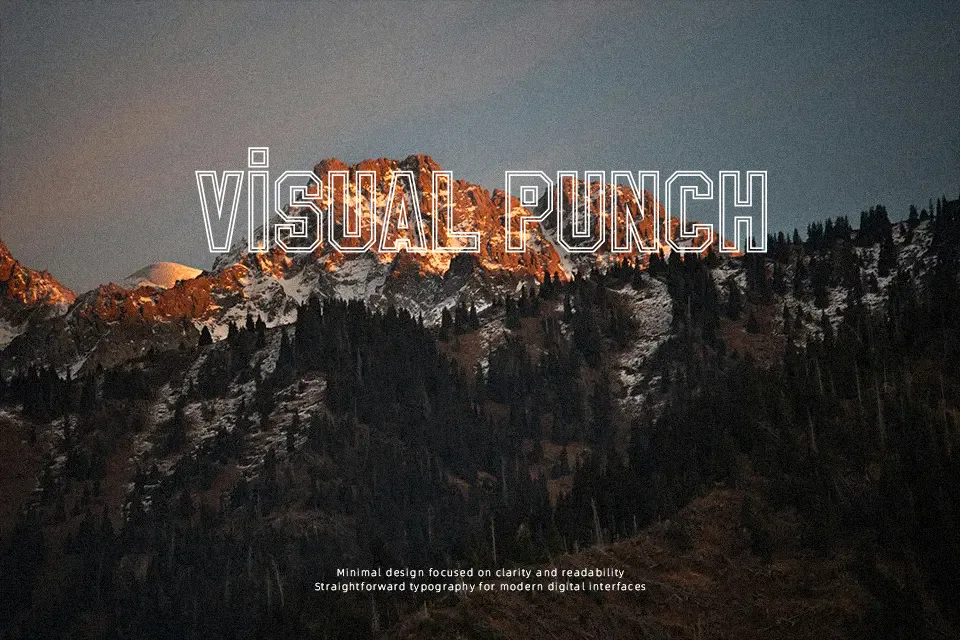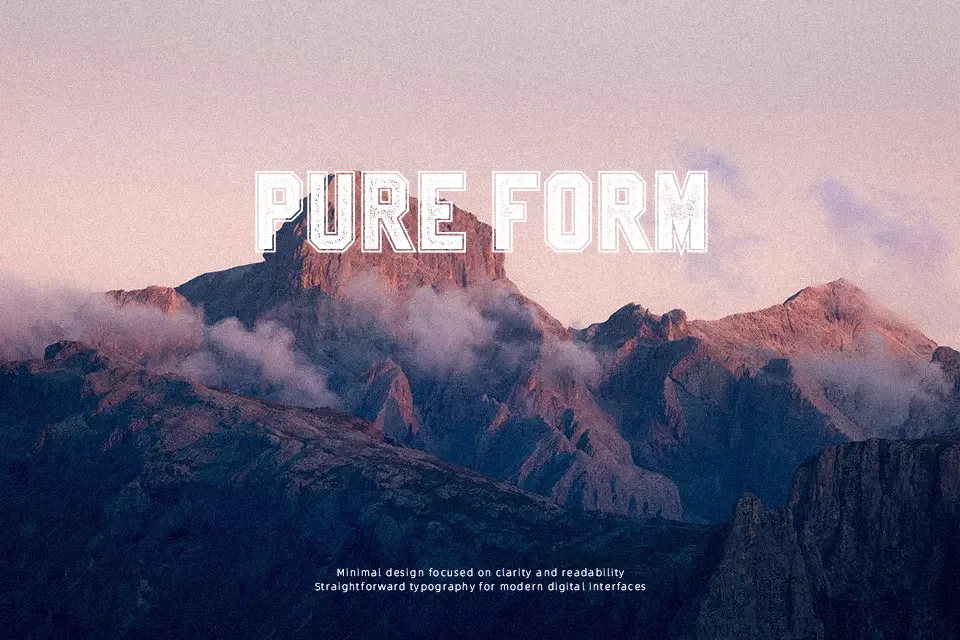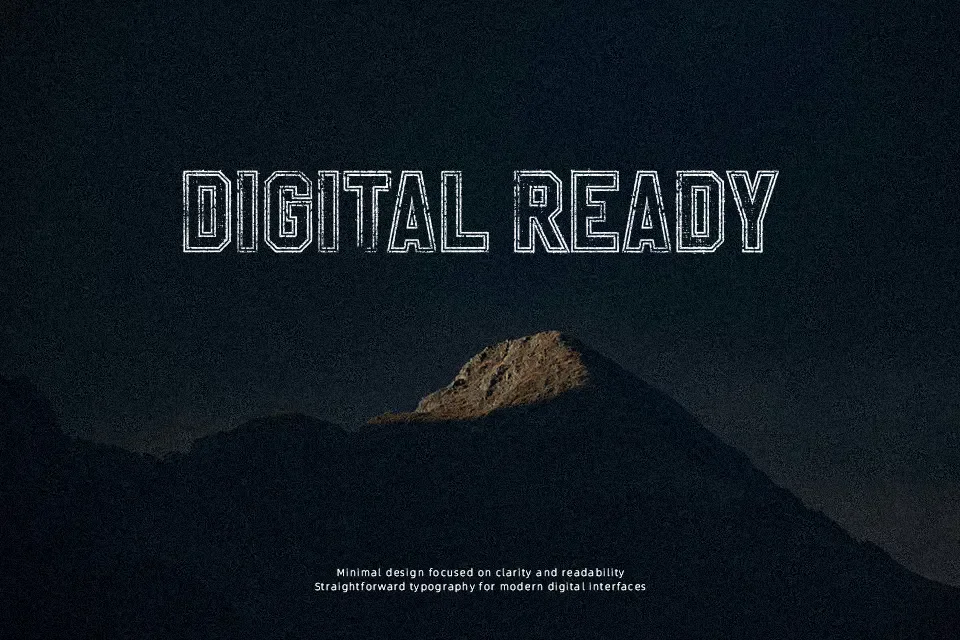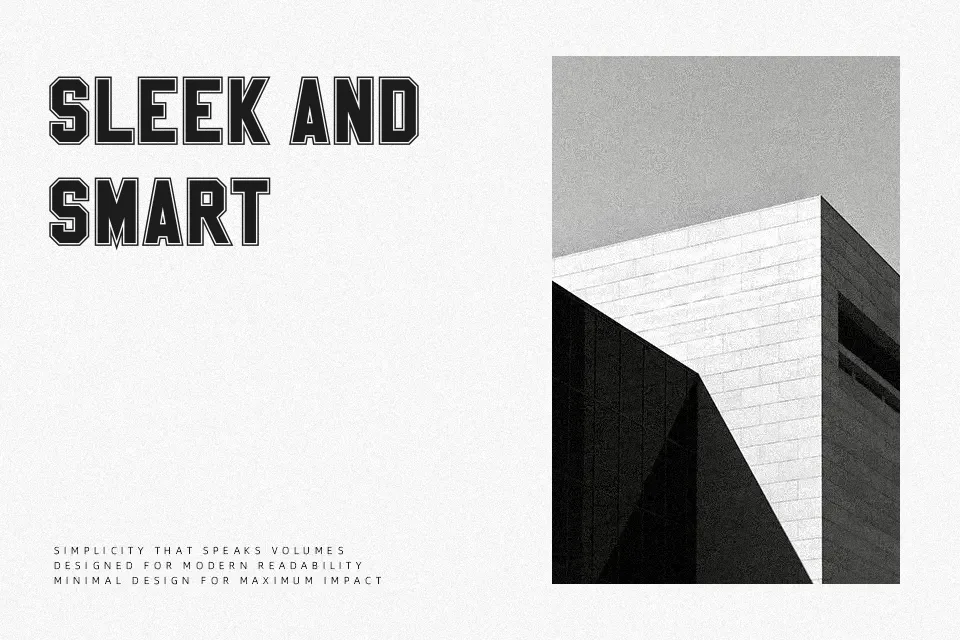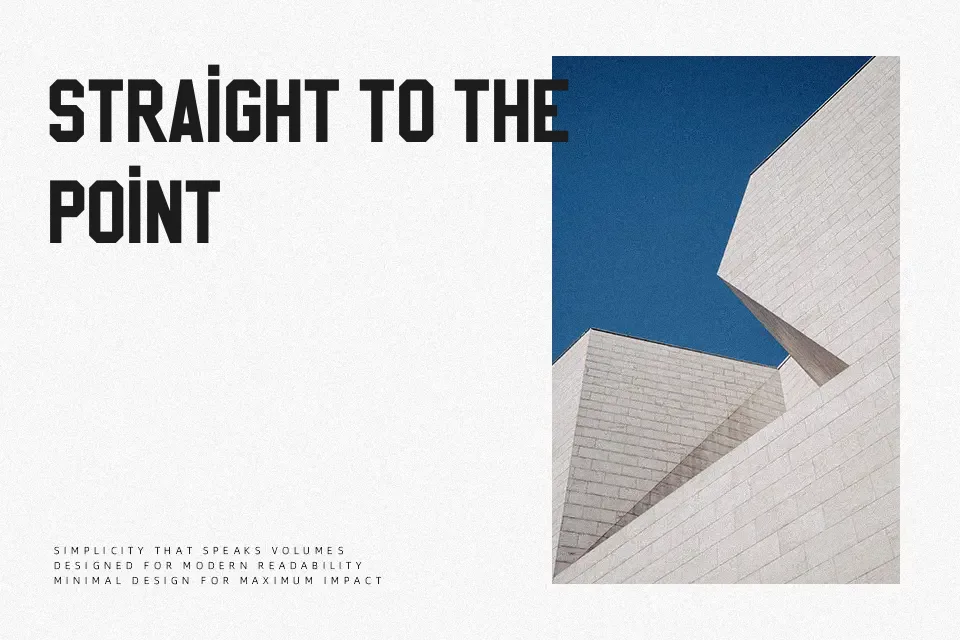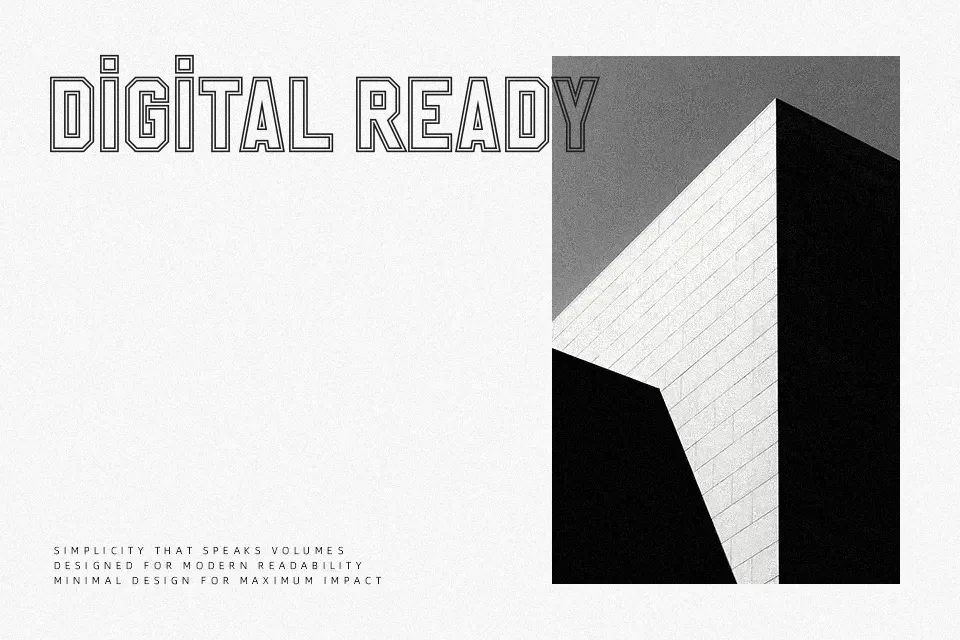
Sablon Up Font
Designed by Youssef Habchi
Sablon Up Font features a robust, semi-condensed sans serif structure that immediately evokes classic collegiate and athletic typography. The letterforms display a clean, geometric architecture with thick, consistent strokes and tightly controlled spacing. This structured visual rhythm ensures excellent readability in large, high-impact display settings. The bold proportions make the typeface an outstanding choice for sports team branding, varsity-inspired apparel, and commanding event posters. The dense forms reduce comfort during extended reading, making it less suitable for long paragraphs. However, the heavy strokes maintain strong visibility in demanding layouts, ensuring that short promotional headlines always stand out with an authoritative, old-school presence.
vintage sports apparel
collegiate team branding
event poster headlines
athletic logo design
Perfect for branding, headline, and logo, with a bold and condensed style.